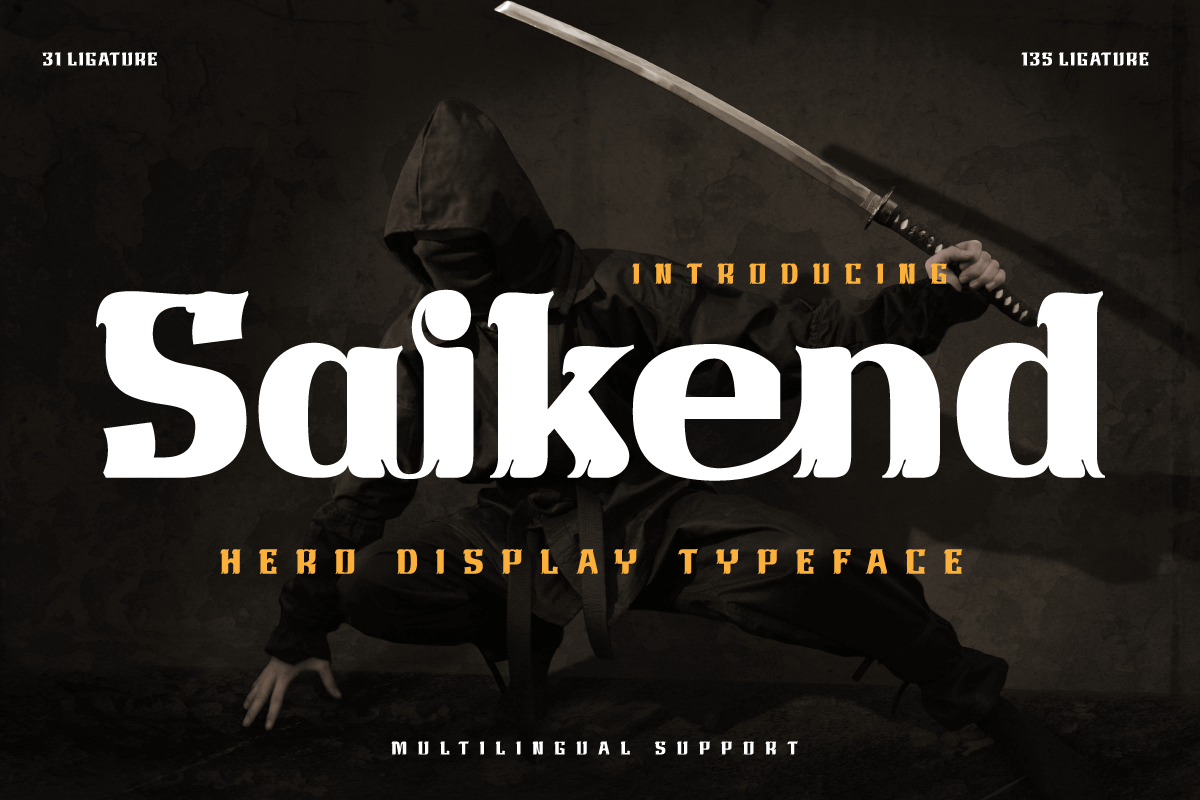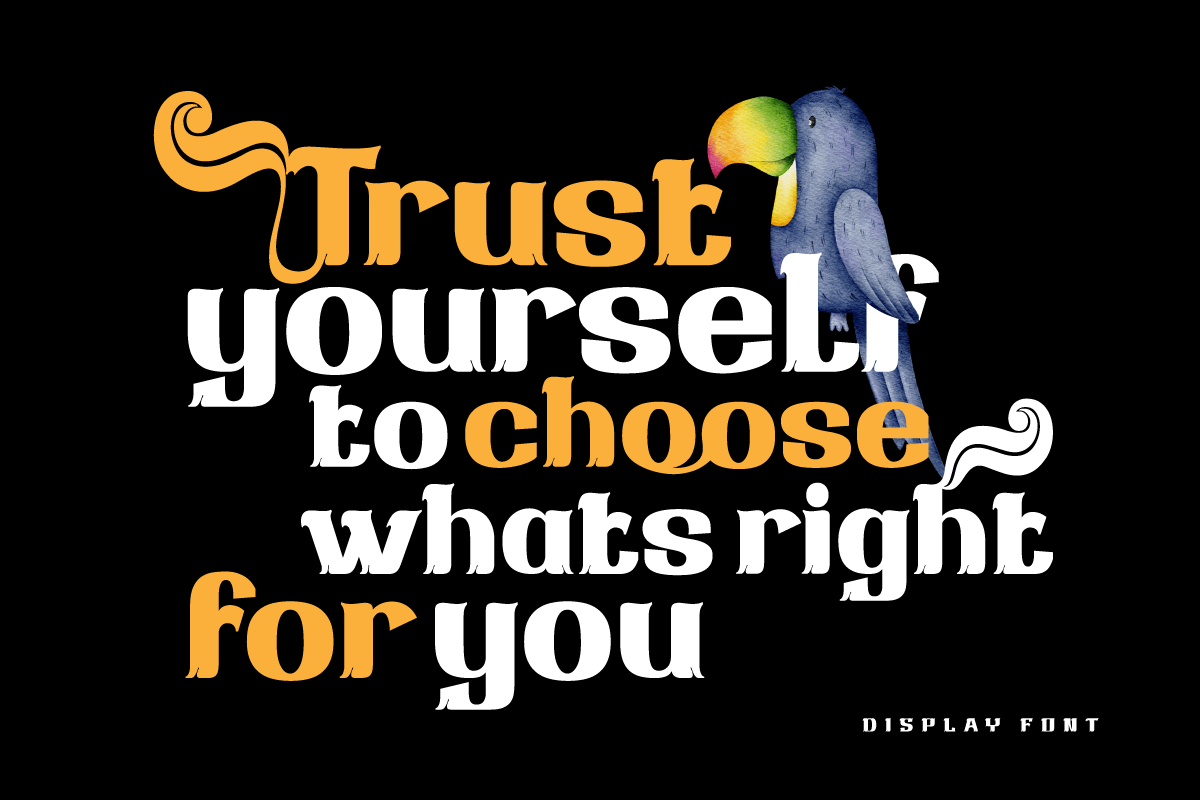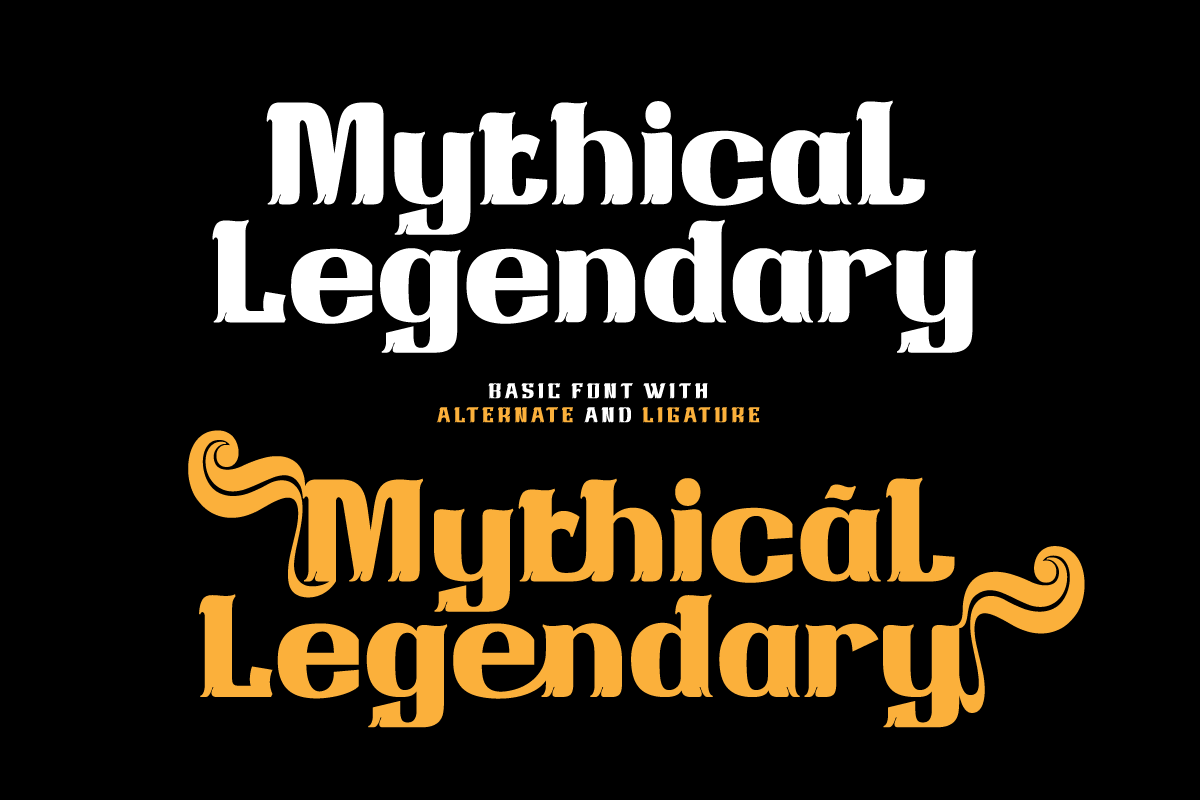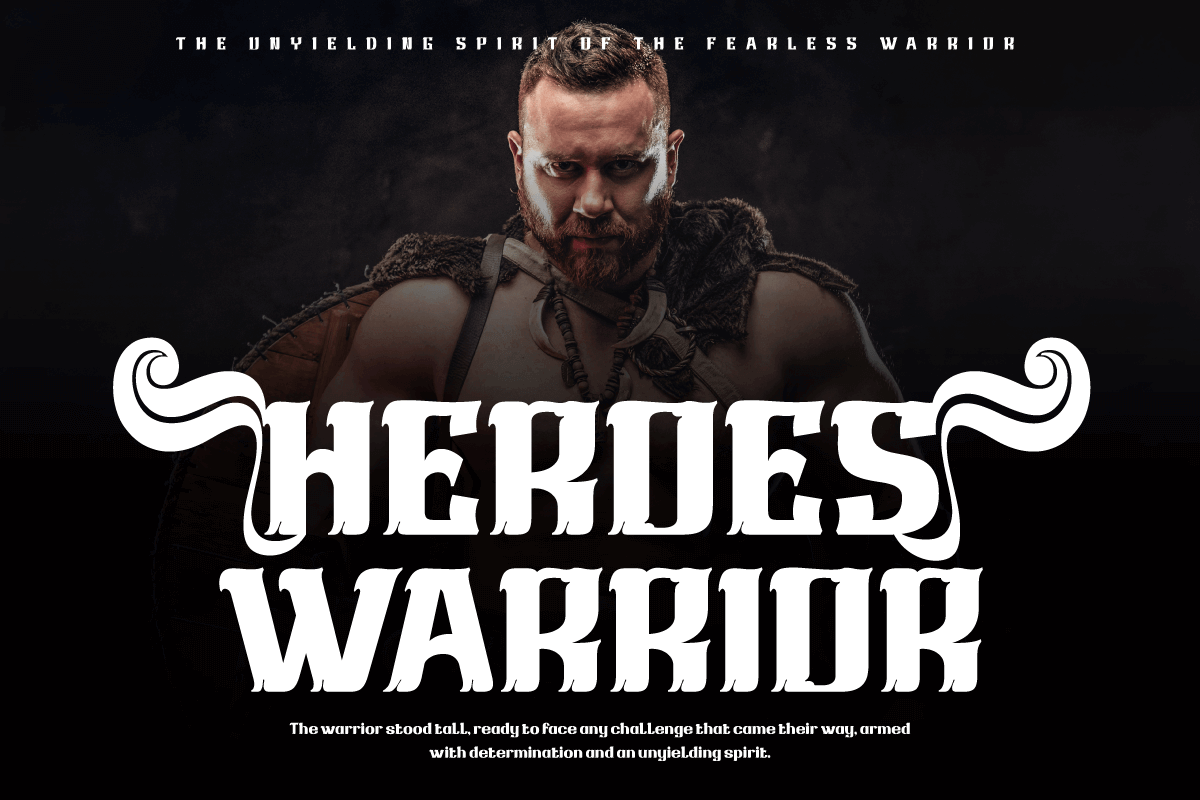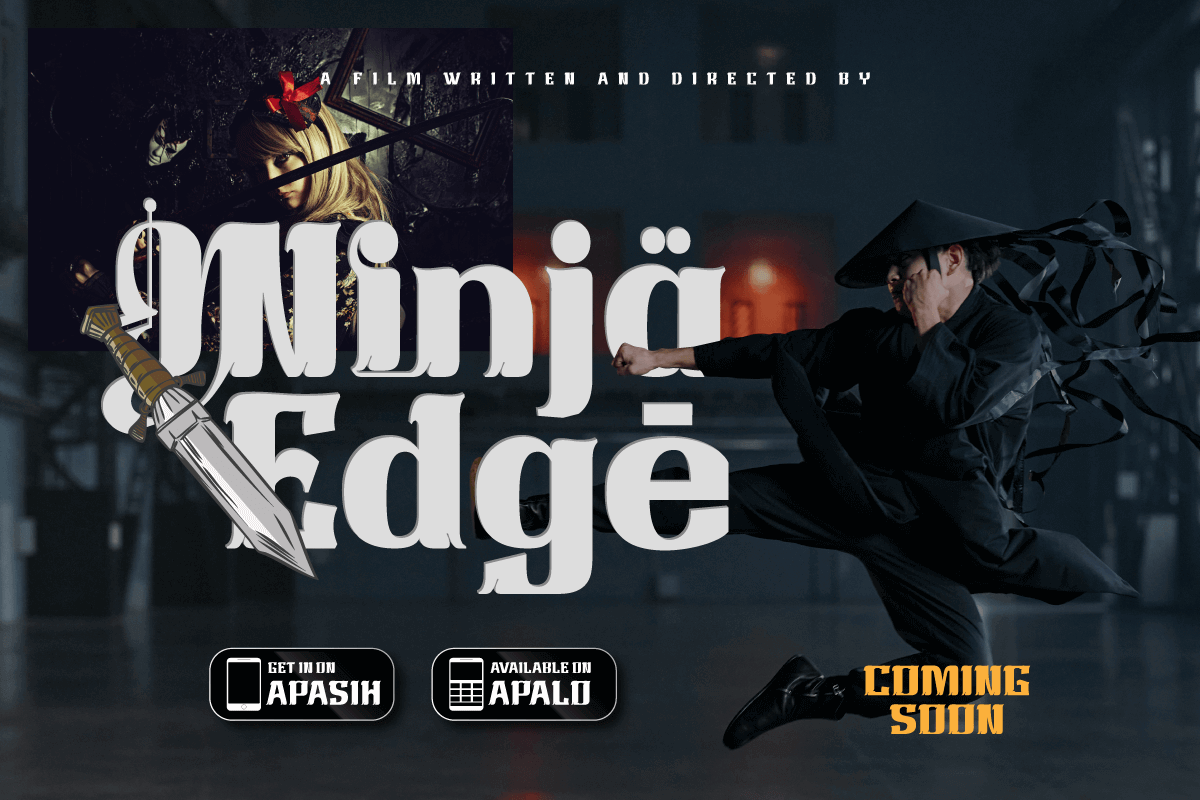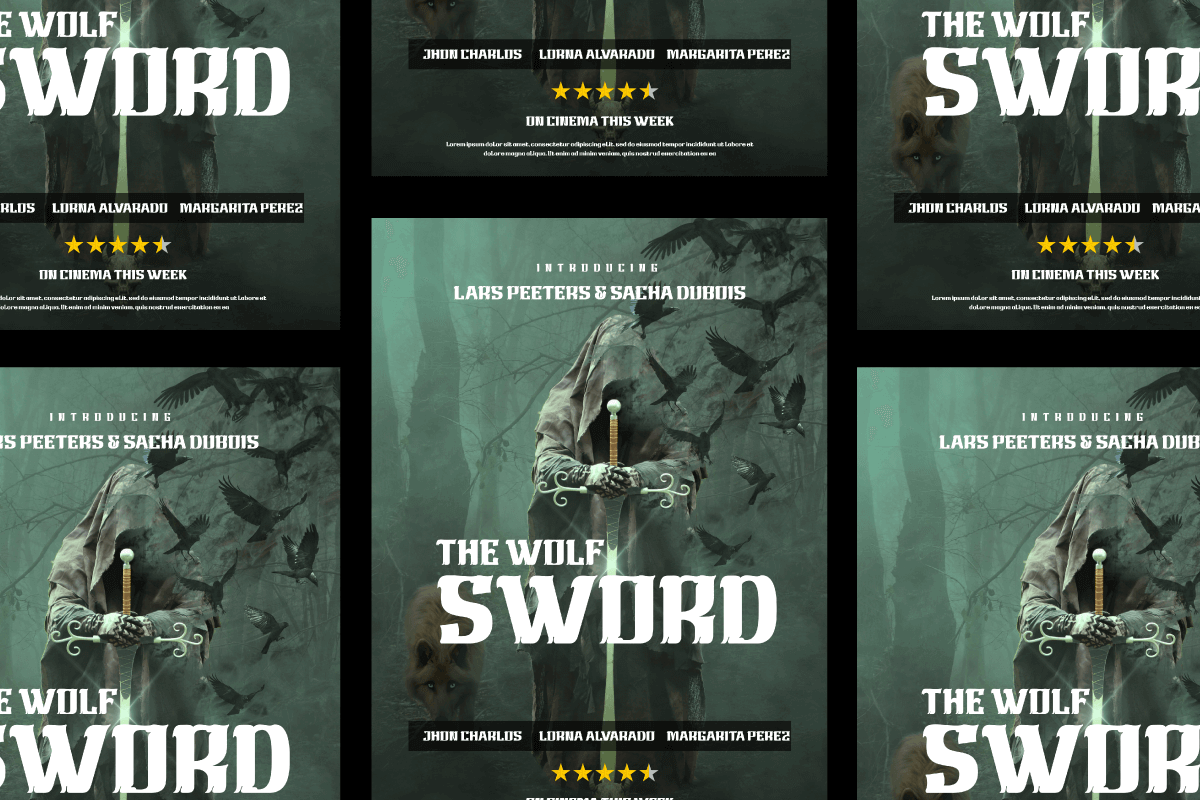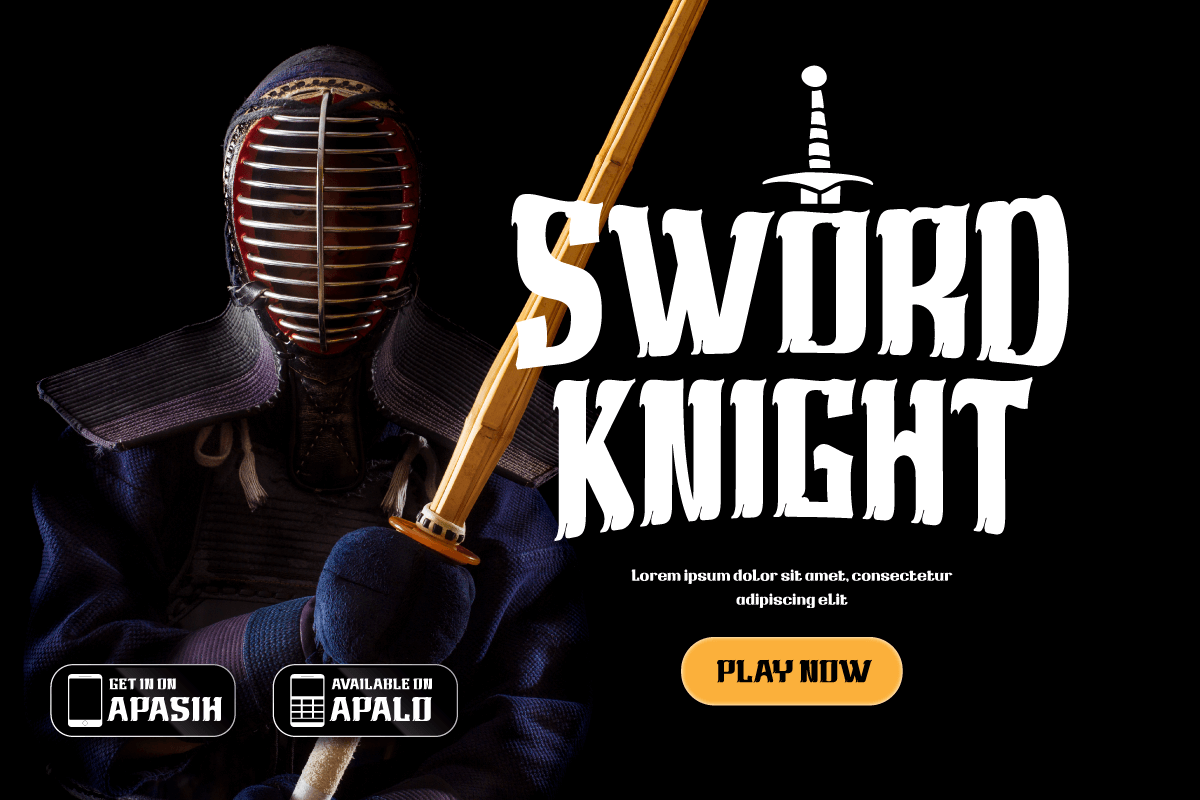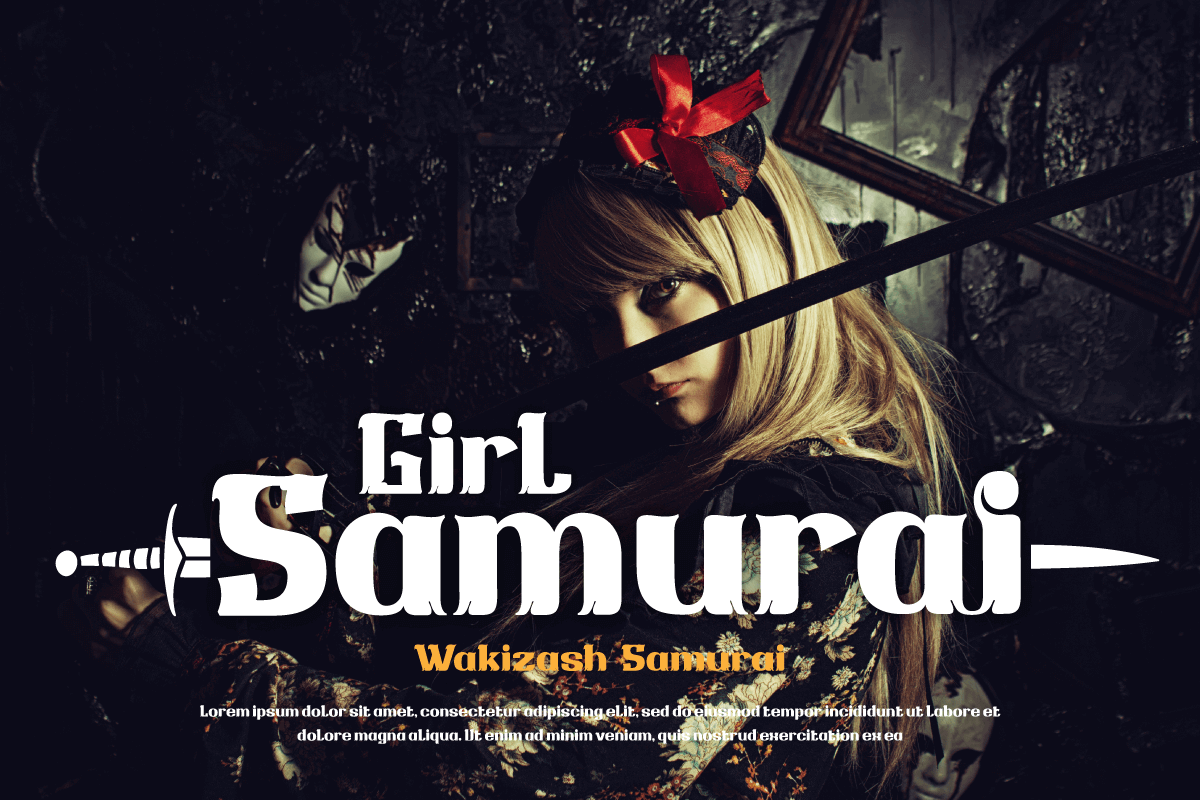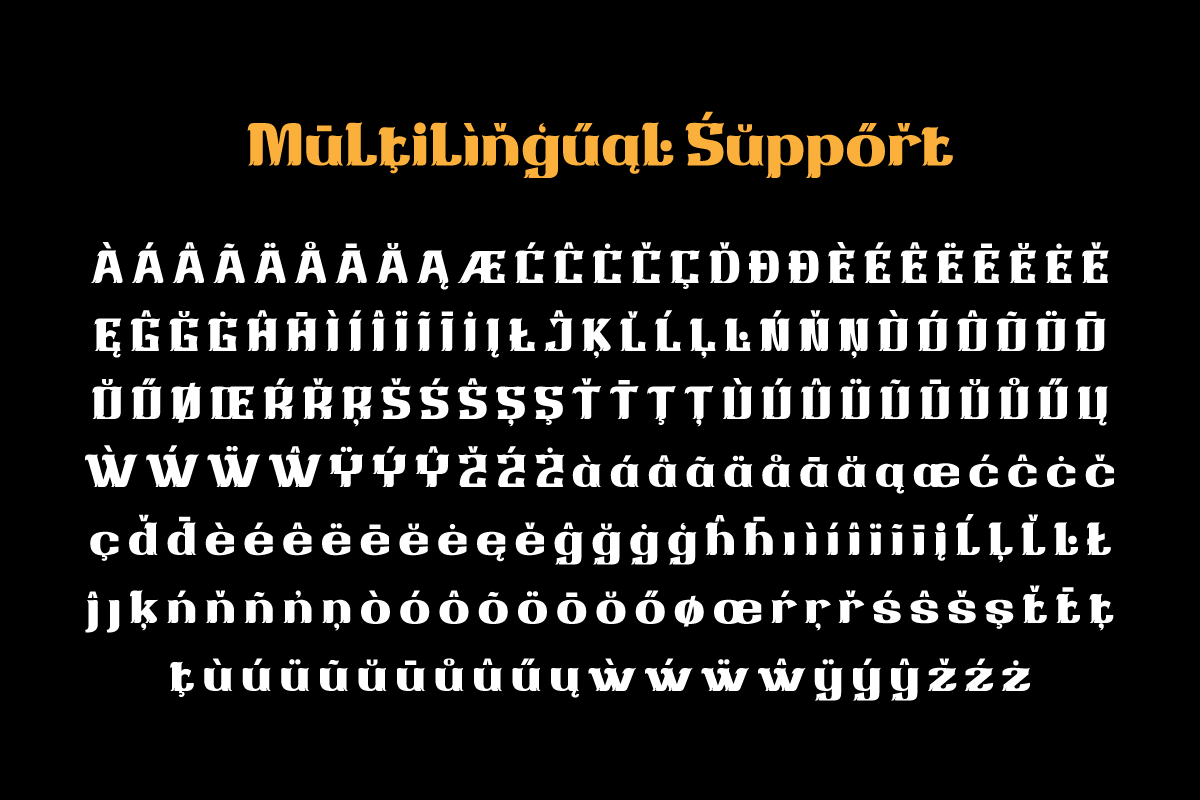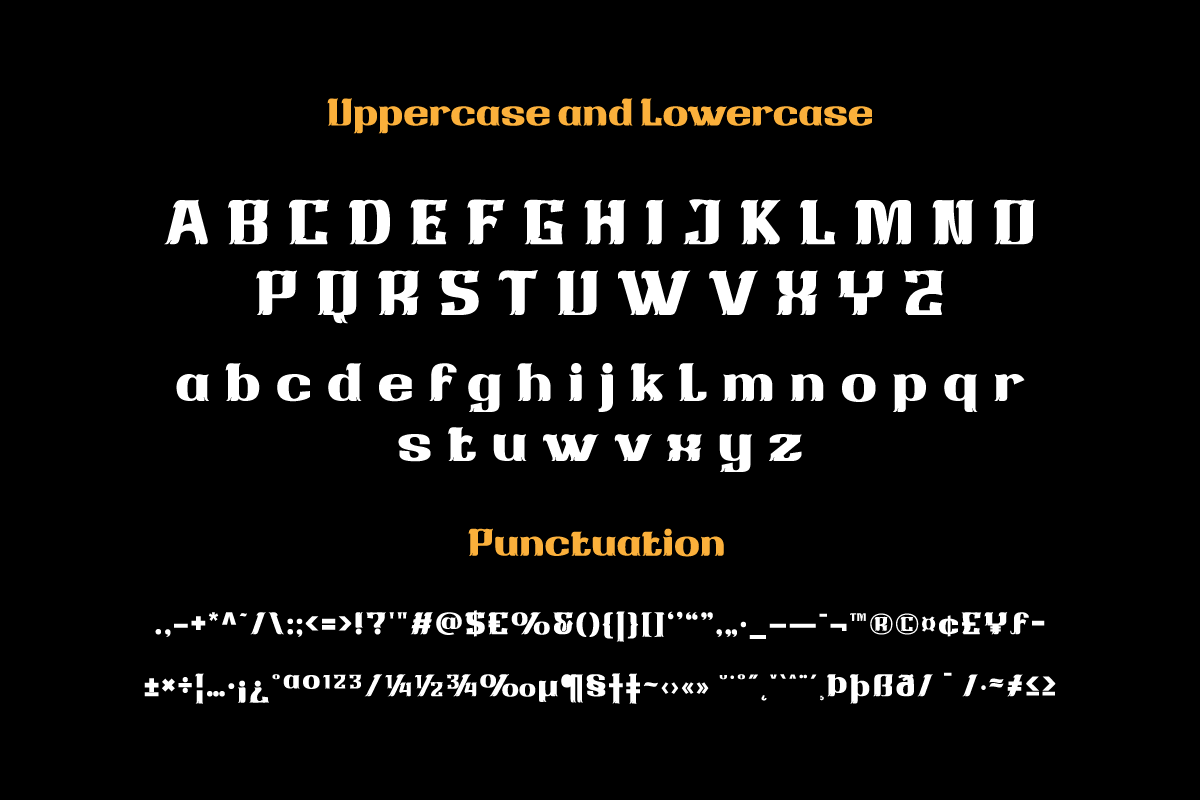
5. Saikend | Display Hero Font
Saikend 01
Saikend | Display Hero Font
Welcome to the world of Sakend! A display font that describes the strength and courage of a superhero. Whether you are working on film projects, games, or designs with strong and action-packed themes, Saikend is the perfect choice for you. With a style inspired by superheroes, Saikend will make your designs the center of attention. The courage and strength that radiate from each letter will bring your project to life, giving it a bold and unforgettable look.
Not only has an attractive appearance but Saikend is also equipped with special features. Alternate ligatures and characters provide flexibility in usage, allowing you to create unique and creative typographical combinations. In addition, Saikend supports multiple languages, so you can get your message across the world.
It’s time to show the power of Saikend in your projects. Bring a touch of hero to your designs with this font, and create an unforgettable look for your audience. Feel free to express courage and thickness through Saikend, and create stunning and inspiring pieces.